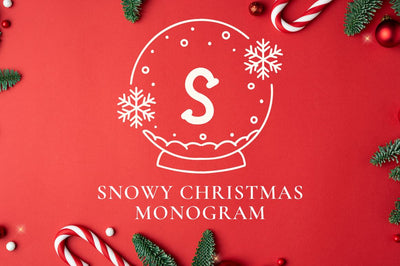
Snowy Christmas Monogram
Snowy Christmas Monogram is Christmas and Winter theme monogram font, winter, elegant & perfect for your Christmas special occasions, business designs, logos, branding, social media posts, and wedding cards.
Comes in with 2 Christmas styles.
Just simply change between uppercase and lowercase to see the different styles!
Include frame design without letter, just click "." or ","
change the letter with your style.
- Uppercase (A-Z)
- Lowercase (a-z)
- Number (0-9)